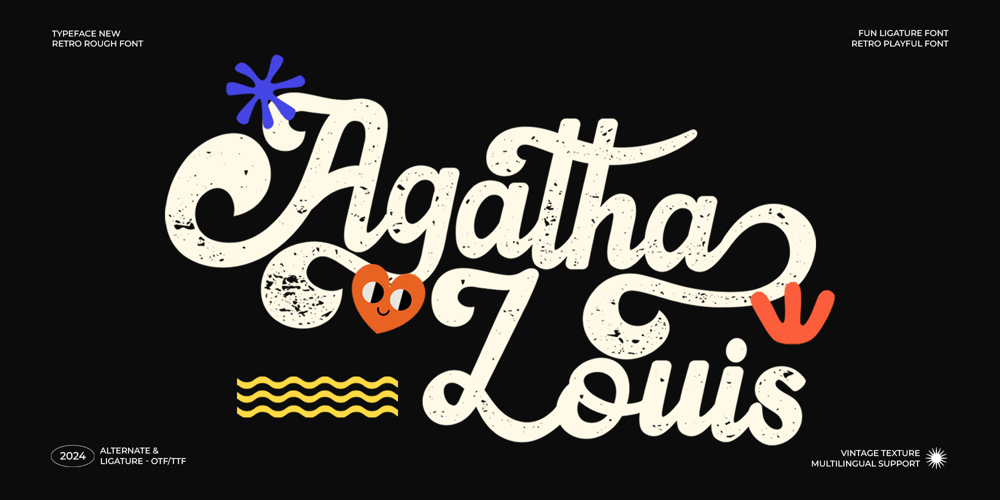
Agatha Louis Font Family was designed by Virgiawan Listanto and published by Inviline. Agatha Louis contains 2 styles and family package options. Introducing a versatile Script Typeface with elegant, flowing strokes and a modern touch. Perfect for branding, wedding invitations, and social media, this typeface adds a sophisticated, handcrafted feel to any design, making it stand out beautifully.